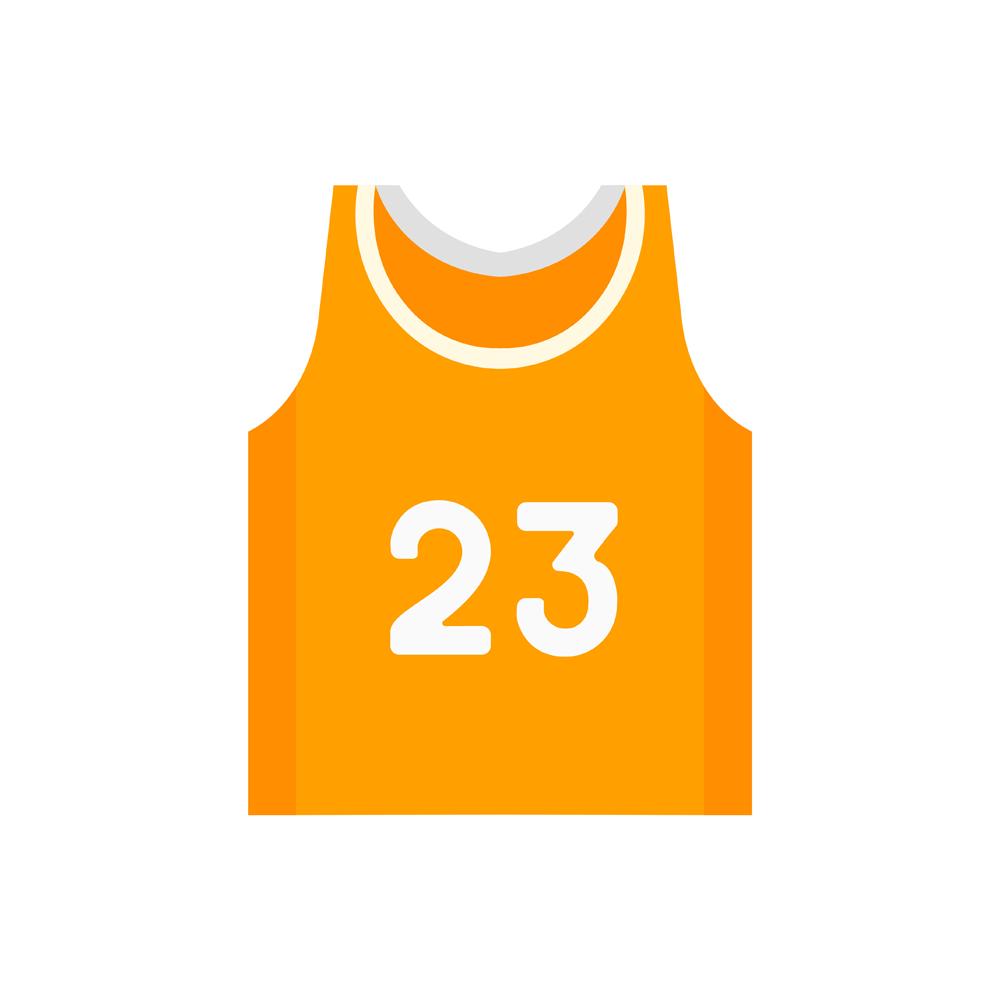
Jersey Font
LogoJersey fonts are specialized fonts used in sports apparel design, characterized by their bold, blocky, and dynamic style that ensures high visibility, essential in sports settings. They are often inspired by traditional sports typography, and their geometric, modern aesthetic makes them suitable for creating custom jerseys across different sports genres.
Here are some great Jersey Fonts to try:
Jersey M54 by justme54s. Free for personal use.
Varsity by Brøderbund Software.
Atlanta College by graphicsauceco. Free for personal use.
Freshman by William Boyd. 100% free.